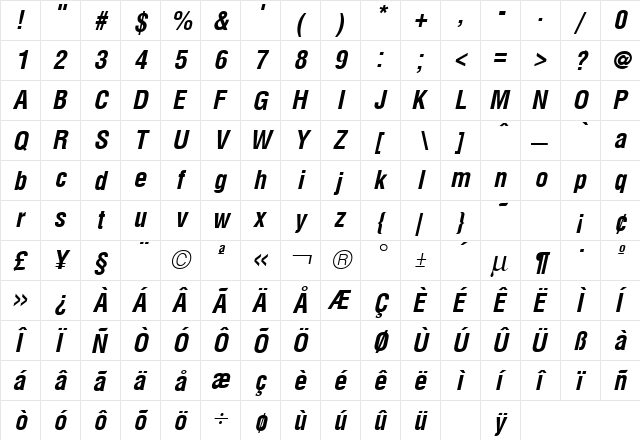
Hallmarke Condensed Bold Italic Font Preview
Design Context for Hallmarke Condensed Typeface
Hallmarke Condensed offers clean, dependable letterforms without strong stylistic allegiance, making it a practical choice for designers who need flexibility. The dynamic lean of this cut emphasises speed and emphasis in any layout. The heavy weight commands attention and anchors typographic hierarchies. Its narrow stance lets it pack a punch even in space-constrained designs.
Pro Tip: Use Hallmarke Condensed for emphasis, pull quotes, and subheadings where its slanted energy can add rhythm to the layout.